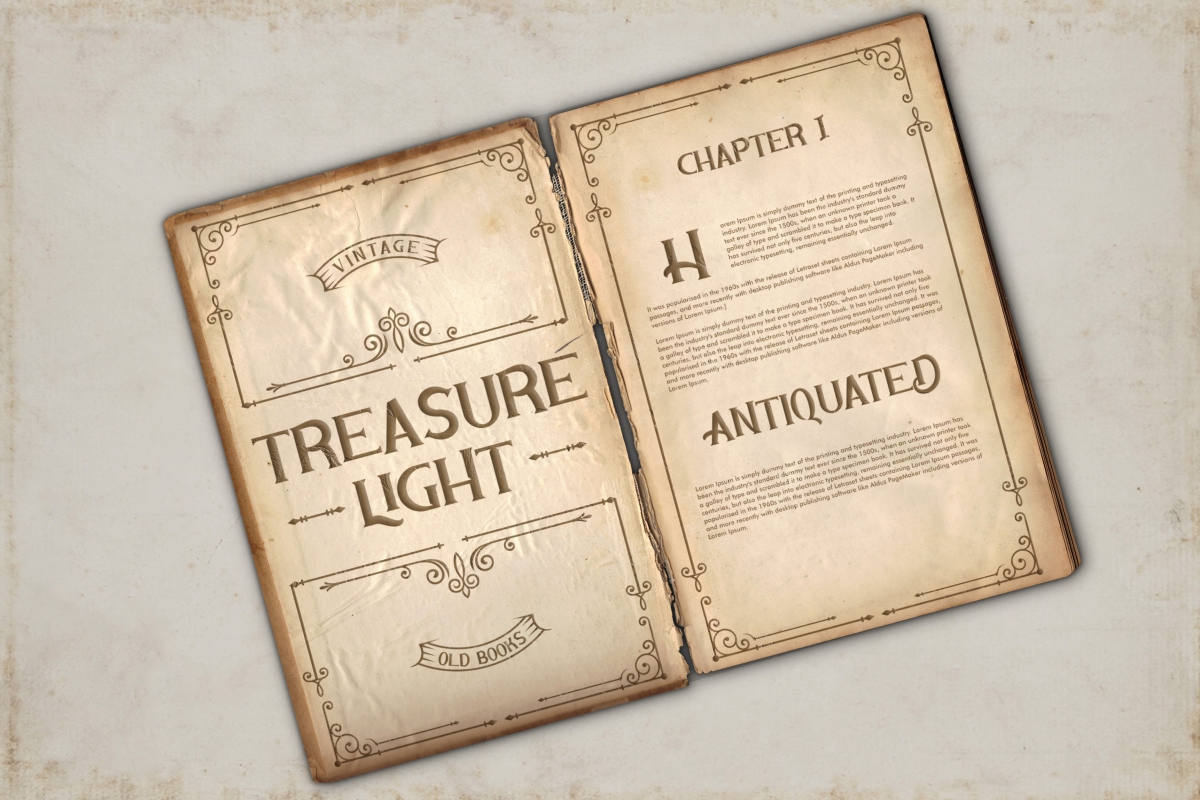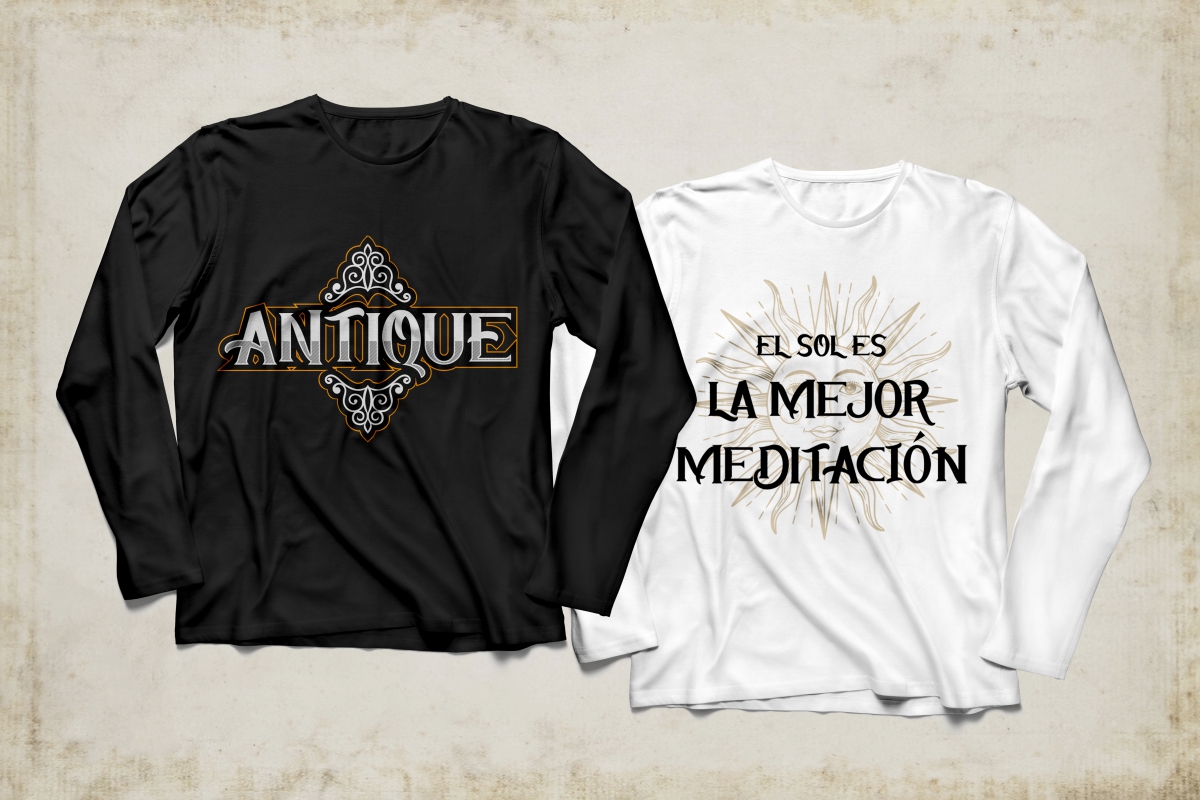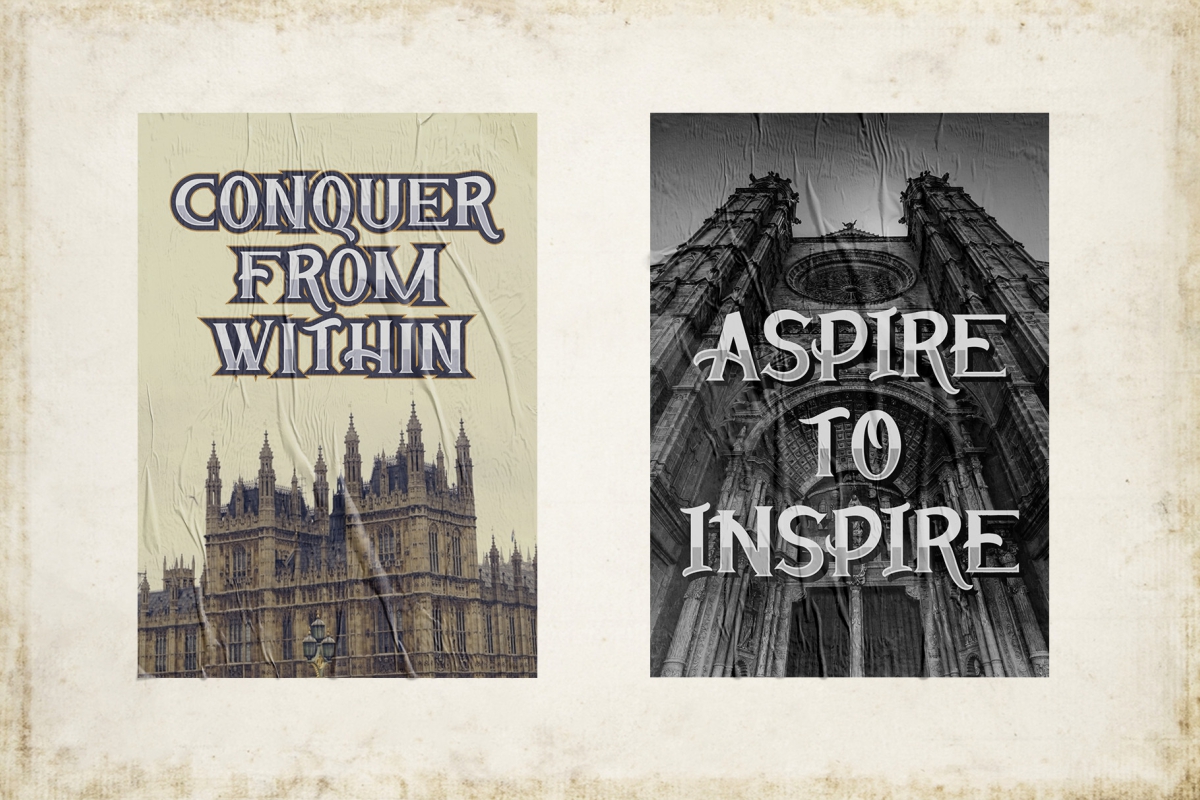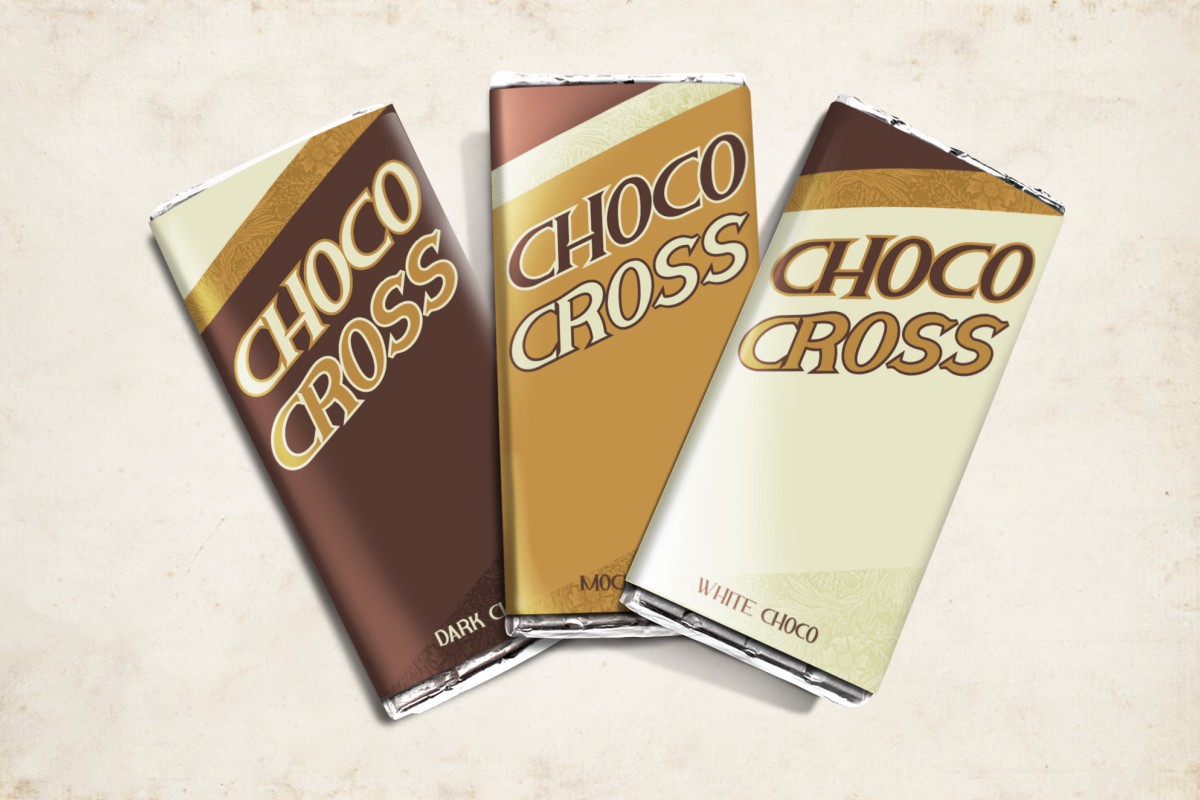
Dark Book Font
Dark Book Display Font
This is an awesome gaming inspired display font with two style options : Regular and Italic plus various alternative decorative characters/letters . The font will suitable for many projects including games, festival, movie poster, esport team, racing, apps and many more